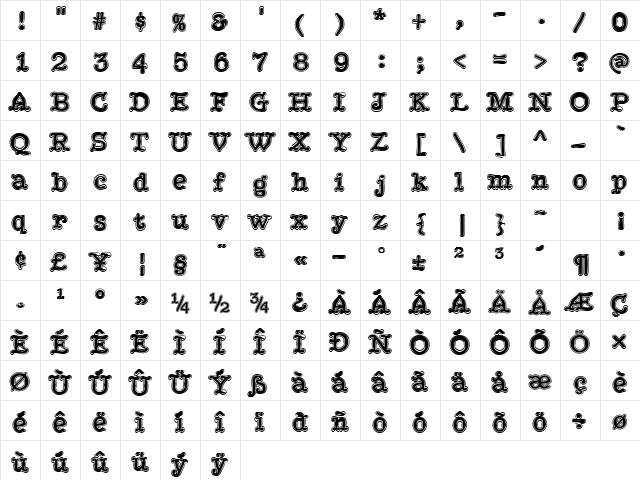
HippityDippityInline Regular
Design Context for HippityDippityInline Typeface
HippityDippityInline brings ornamental detail and strong personality to headlines and identities, where visual impact matters more than quiet functionality.
Font Pairing: Pair with a clean neutral sans-serif for body copy to let HippityDippityInline's character lead without overwhelming the composition.
Pro Tip: Treat HippityDippityInline as the centrepiece of your typographic hierarchy. One strong heading set in a decorative face can carry an entire layout.